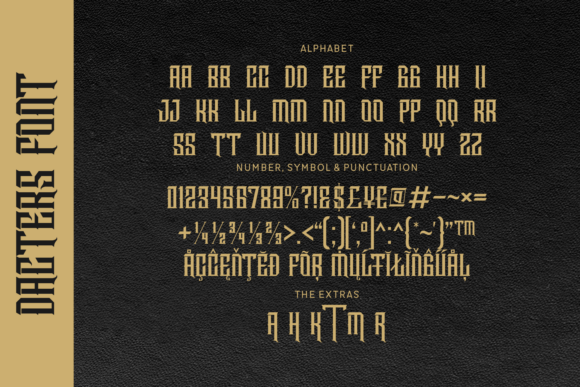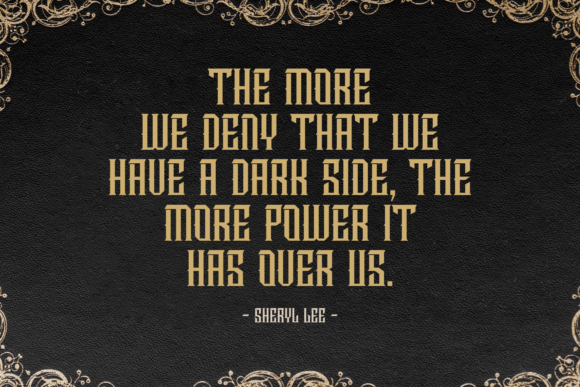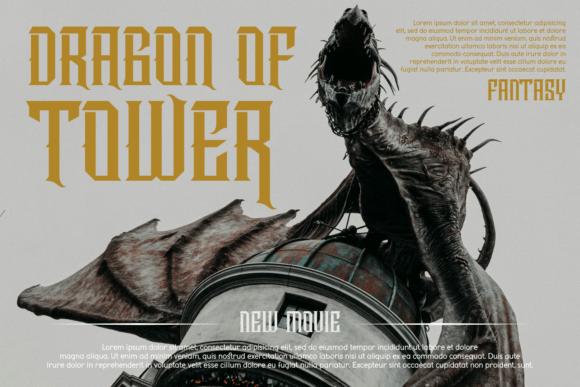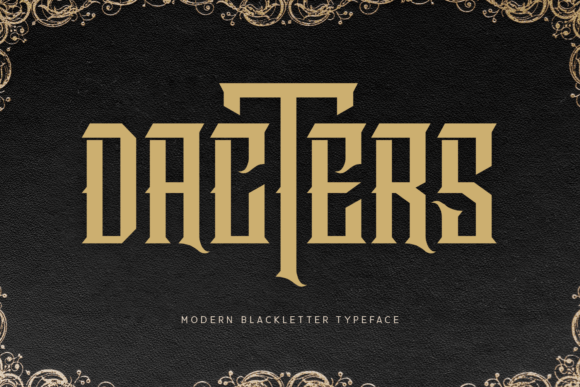
Introduction to Dacters Font
Dacters is a modern blackletter font with a bold and edgy look.
Inspired by traditional Gothic styles, it combines sharp angles and clean lines, giving it a powerful and stylish feel Perfect for eye-catching titles, logos, and designs that need a strong, dramatic impact.